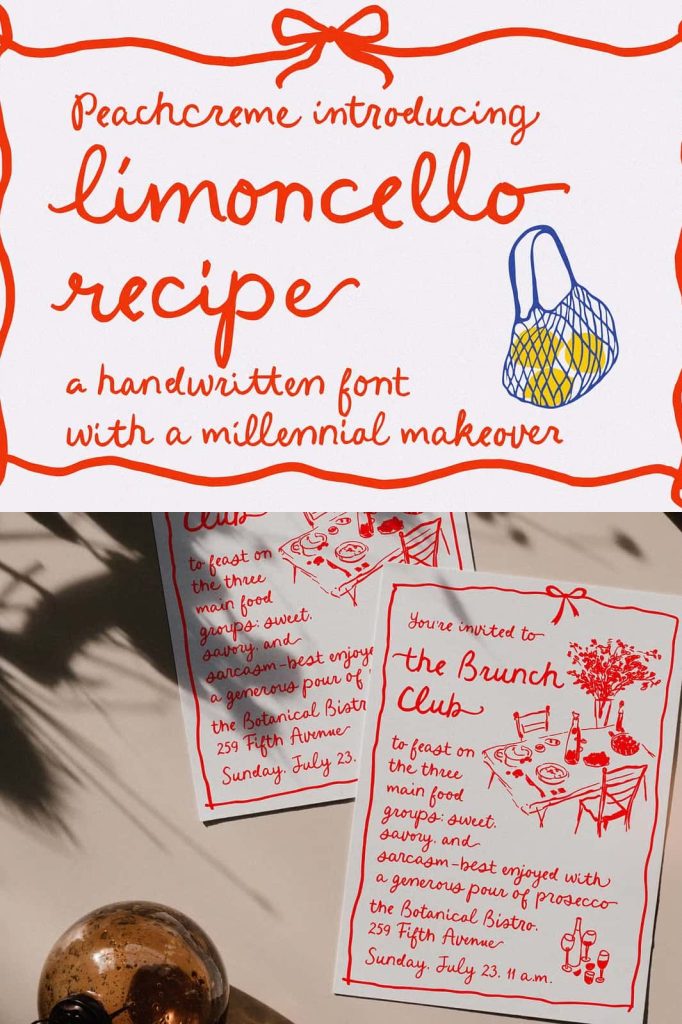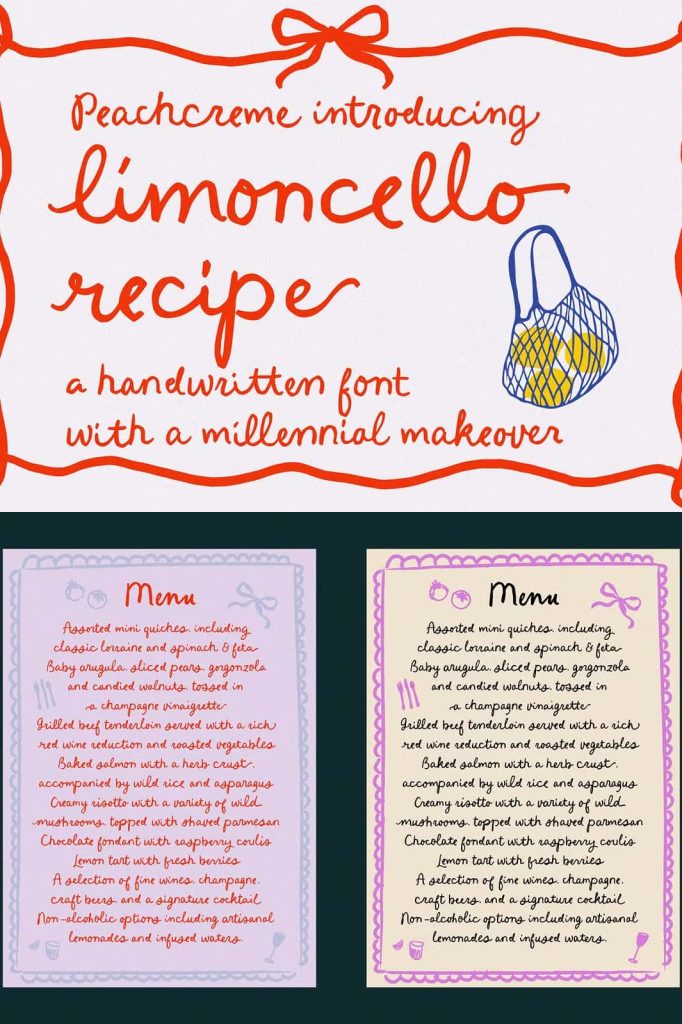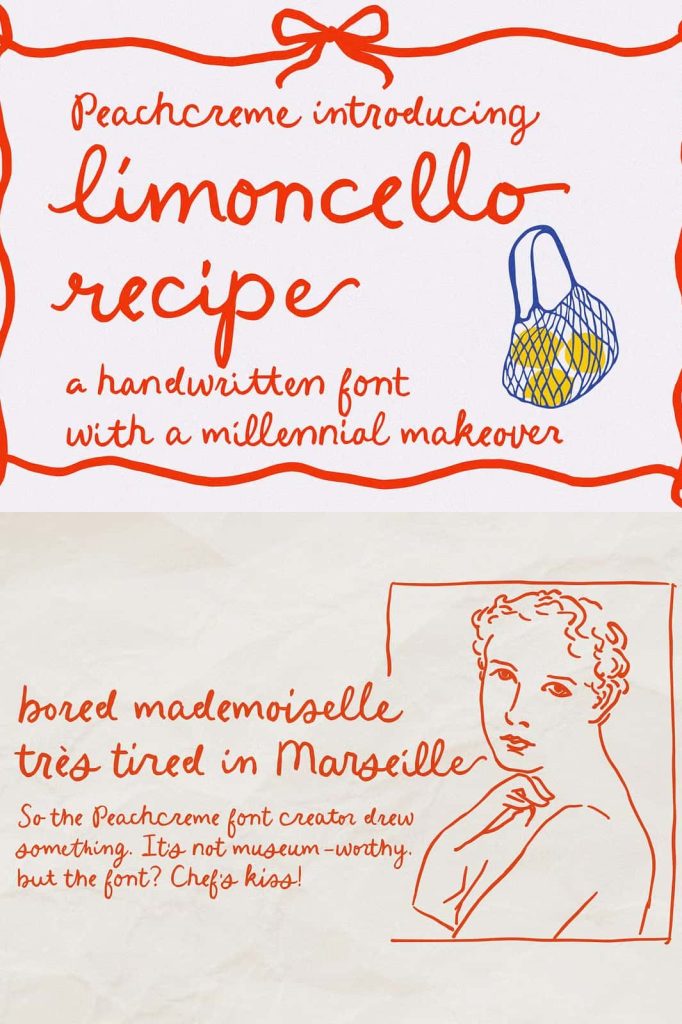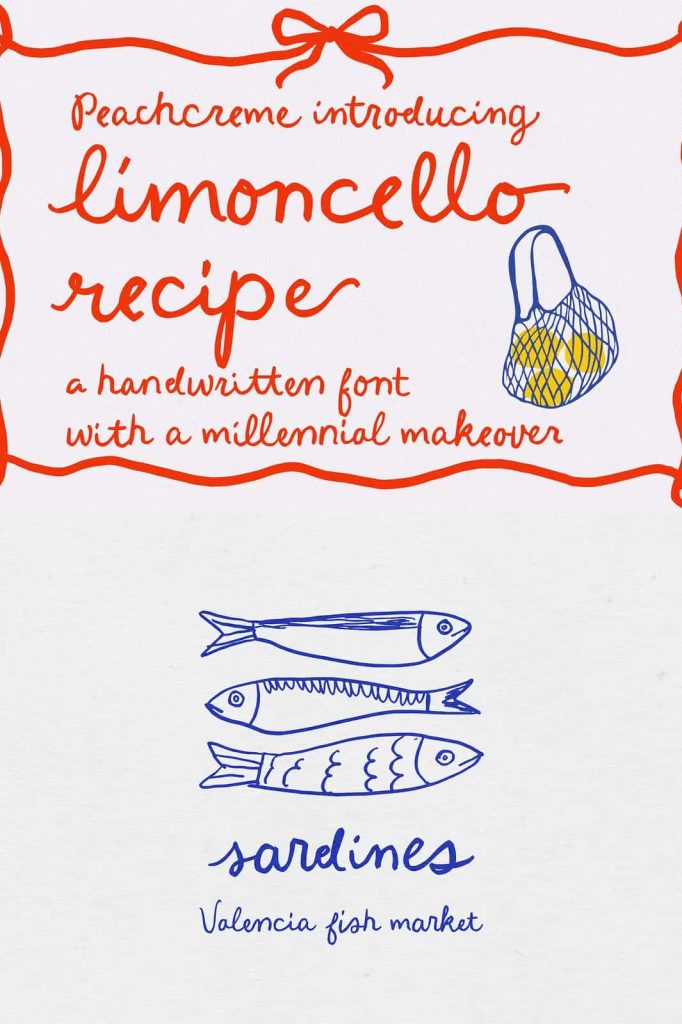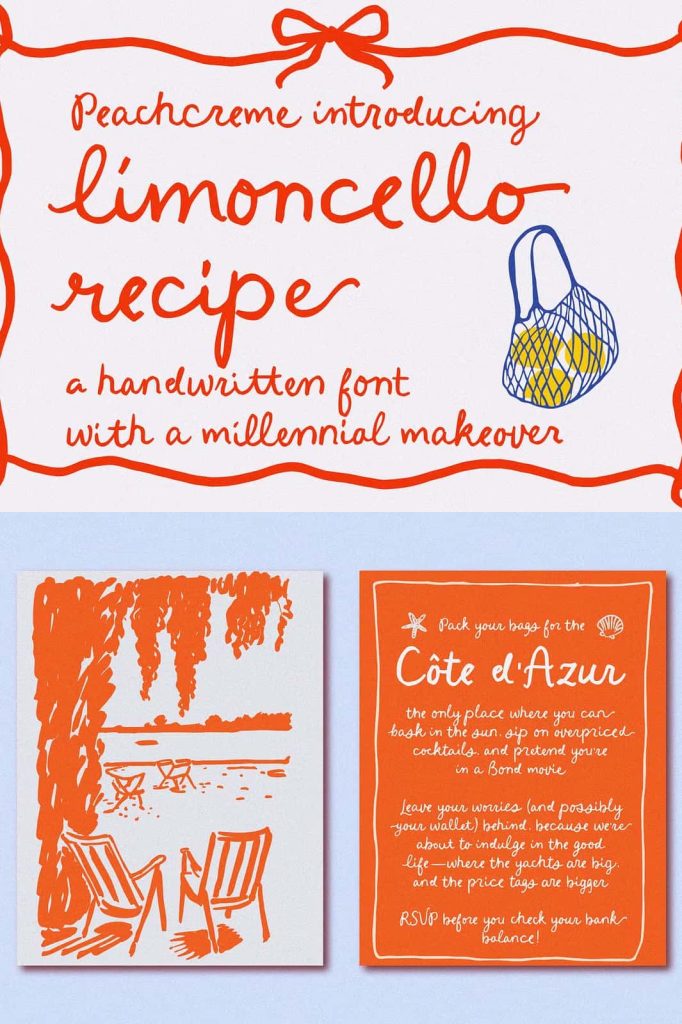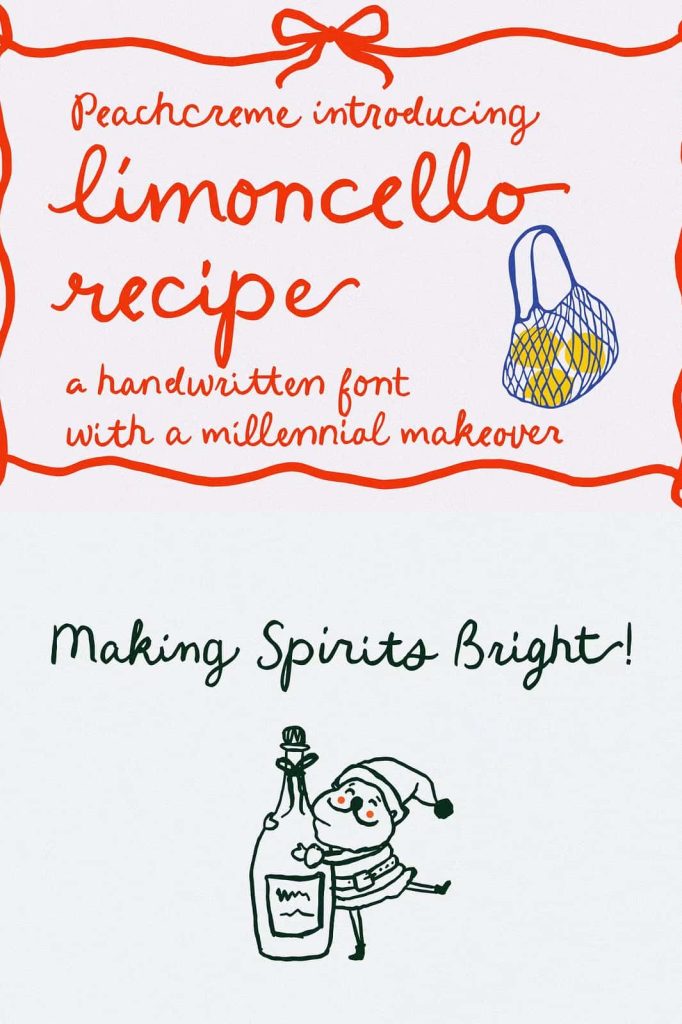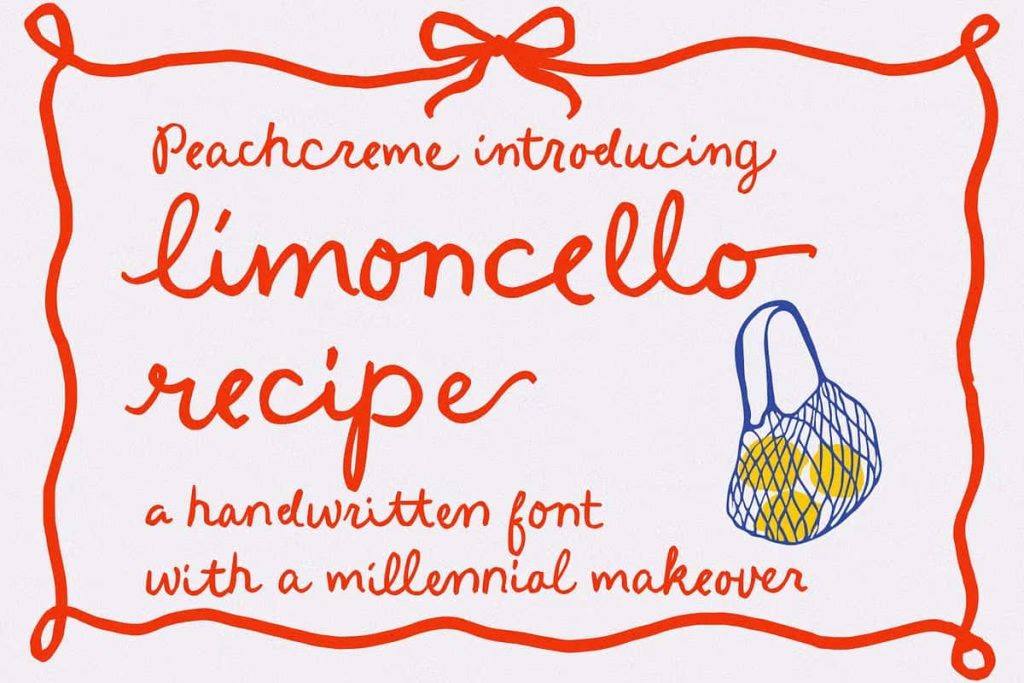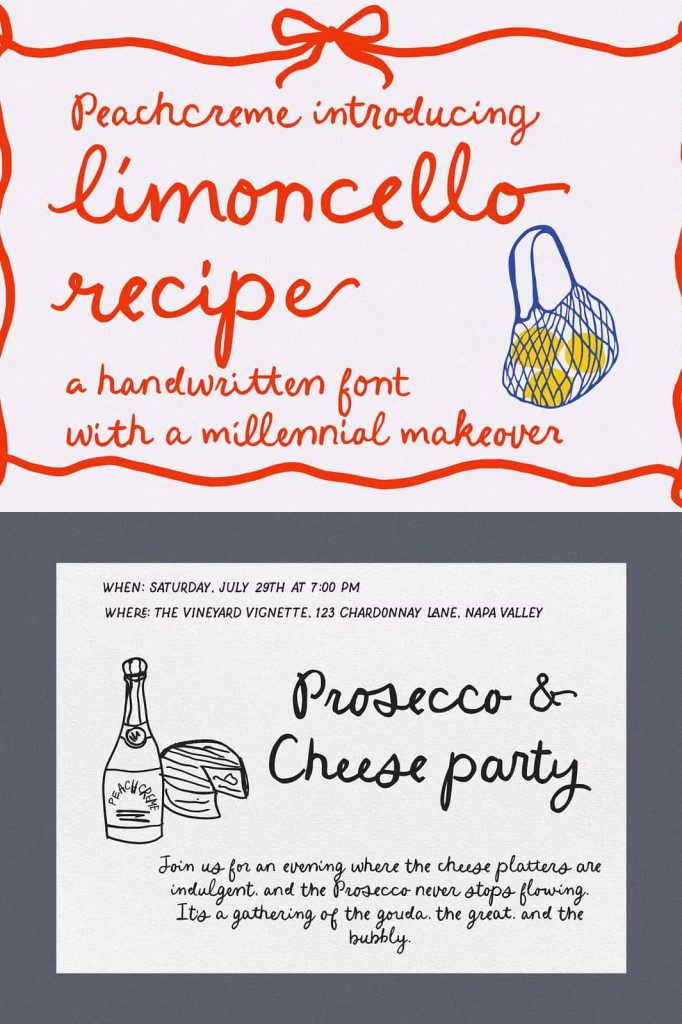
Limoncello Recipe Handwritten Font: Imperfect Strokes with Personal Charm
Limoncello Recipe is a handwritten font that celebrates the beauty of imperfection. It captures the essence of natural handwriting through uneven strokes, organic spacing, and a relaxed, unpolished style. Inspired by the handwritten notes found in a well-loved family cookbook, this font brings warmth, authenticity, and personality into every design.
Rather than striving for perfect precision, Limoncello Recipe embraces irregularity. Each letter carries a human touch that makes the text feel alive and expressive. Designers can use this font to create work that feels personal, approachable, and emotionally engaging. It transforms simple words into meaningful visual experiences.
Embracing the Beauty of Imperfection
Limoncello Recipe stands out by intentionally avoiding uniformity. Its slightly uneven lines and varied stroke thickness create a natural rhythm that mirrors real handwriting. This approach gives the font a distinctive identity that feels honest and relatable.
Designers can use this imperfect quality to add depth and authenticity to their projects. It works especially well in designs that aim to feel handcrafted and genuine. The irregular forms create a visual texture that enhances the overall composition.
Natural Flow and Organic Structure
The font features a smooth yet unpredictable flow that mimics the movement of a pen on paper. Letters connect in a way that feels spontaneous rather than mechanical. This organic structure makes the text more engaging and visually interesting.
By using this natural flow, designers can create typography that feels relaxed and inviting. It encourages viewers to connect with the content on a more personal level.
Inspired by Handwritten Recipes and Personal Notes
Limoncello Recipe draws inspiration from handwritten recipe books passed down through generations. These notes often carry memories, stories, and a sense of tradition. The font captures that same nostalgic feeling, bringing a sense of familiarity and warmth into modern design.
This inspiration makes the font particularly effective for projects that involve storytelling or emotional connection. It allows designers to evoke a sense of history and personal touch without relying on complex visuals.
A Nostalgic and Heartfelt Aesthetic
The font’s style reflects a time when handwriting played a central role in communication. Its casual and unrefined appearance feels sincere and heartfelt. This aesthetic adds character to designs and helps them stand out in a world of polished digital typography.
Designers can use this nostalgic quality to create visuals that feel comforting and authentic. It enhances the emotional impact of the message being conveyed.
Perfect for Personal and Creative Design Projects
Limoncello Recipe adapts easily to a wide range of creative applications. Its approachable style makes it suitable for both personal and professional projects. Designers can use it to build visuals that feel warm, friendly, and engaging.
The font performs well in both print and digital formats. It maintains its character across different sizes and layouts, ensuring consistent results in various design environments.
Ideal for Branding, Packaging, and Quotes
In branding, Limoncello Recipe helps create a unique and memorable identity. Its handwritten style adds a personal touch that resonates with audiences. It works particularly well for food brands, lifestyle products, and creative businesses.
For packaging design, the font introduces a handcrafted feel that enhances product presentation. It makes items appear more authentic and carefully curated. In quote design, the font adds personality and emotion, making messages more impactful and relatable.
Creating Connection Through Typography
Limoncello Recipe goes beyond visual design by creating a sense of connection between the text and the viewer. Its human-like qualities make it feel more approachable and engaging. This connection strengthens the overall impact of the design.
Designers can use this font to communicate messages that feel genuine and sincere. It helps build trust and emotional resonance, which are essential in many design contexts.
Warm, Friendly, and Expressive Tone
The font introduces a tone that feels welcoming and relaxed. It softens rigid layouts and adds a layer of personality that enhances the overall composition. This makes it particularly effective in projects that aim to feel friendly and accessible.
By incorporating Limoncello Recipe, designers can create visuals that stand out through authenticity rather than complexity. It proves that simplicity and imperfection can be powerful design tools.
Conclusion
Limoncello Recipe handwritten font captures the charm of imperfect strokes and the warmth of personal expression. Inspired by handwritten recipes and everyday notes, it offers a unique and engaging typographic style. Whether used in branding, packaging, quotes, or creative projects, this font brings authenticity, character, and emotional depth to every design.